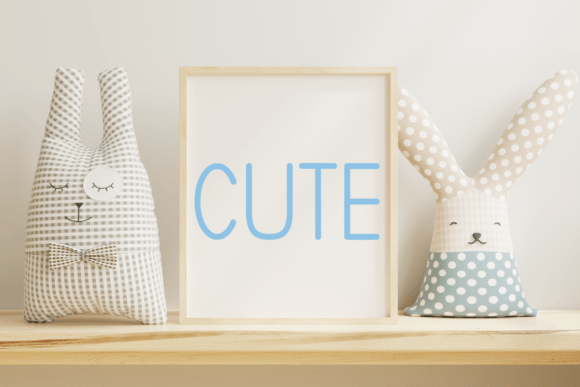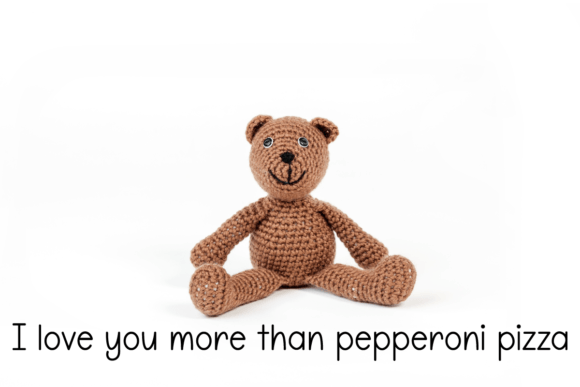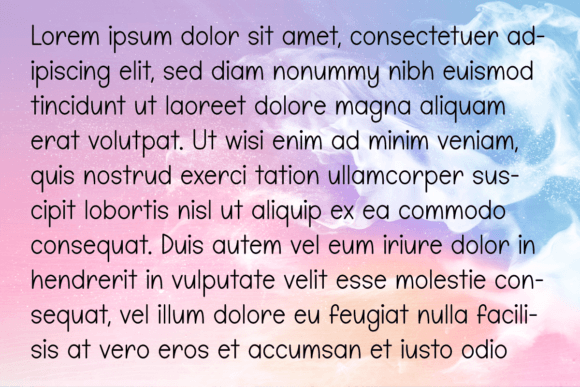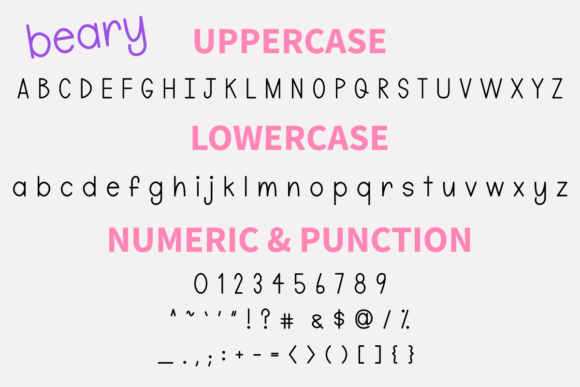
Introducing Beary Font: The Ultimate Choice for Whimsical Designs
Are you tired of using the same old fonts in your designs? Do you want to add a touch of personality and whimsy to your projects? Look no further than Beary Font, a fun and friendly handwritten font that’s sure to brighten up any design. In this article, we’ll take a closer look at Beary Font, its features, and how you can use it to take your designs to the next level.
What is Beary Font?
Beary Font is a handwritten font that’s designed to be both fun and friendly. Its whimsical and quirky style makes it perfect for designers who want to add a personal touch to their projects. Whether you’re working on a logo, wedding invitation, quote, advertisement, or print material, Beary Font is the perfect choice.
Key Features of Beary Font
• Handwritten style: Beary Font has a unique, handwritten style that’s both personal and approachable.
• Whimsical and quirky: This font is designed to be fun and playful, making it perfect for designers who want to add a touch of personality to their projects.
• Versatile: Beary Font can be used for a wide range of projects, including logos, wedding invitations, quotes, advertisements, print materials, magazines, and more.
• Easy to read: Despite its playful style, Beary Font is easy to read, making it perfect for body text and headlines.
How to Use Beary Font in Your Designs
Beary Font is a versatile font that can be used in a wide range of designs. Here are a few ideas to get you started:
• Logos: Use Beary Font to create a fun and memorable logo for your business or brand.
• Wedding invitations: Add a touch of whimsy to your wedding invitations with Beary Font.
• Quotes and posters: Use Beary Font to create eye-catching quotes and posters that will grab attention.
• Advertisements: Beary Font is perfect for advertisements that need to stand out from the crowd.
• Print materials: Use Beary Font in your print materials, such as brochures, flyers, and business cards.
• Magazines: Beary Font is a great choice for magazine headlines and body text.
Why Choose Beary Font?
So why choose Beary Font over other fonts? Here are a few reasons:
• Unique style: Beary Font has a unique style that’s both fun and friendly.
• High-quality design: Beary Font is designed to be high-quality and easy to read.
• Versatile: Beary Font can be used for a wide range of projects.
Tips for Using Beary Font Effectively
Here are a few tips for using Beary Font effectively in your designs:
• Use it sparingly: Beary Font is a bold font, so use it sparingly to avoid overwhelming your design.
• Pair it with other fonts: Beary Font pairs well with other fonts, so experiment with different combinations to find the perfect look.
• Experiment with colors: Beary Font looks great in a wide range of colors, so experiment to find the perfect color for your design.
Beary Font is a fun and friendly handwritten font that’s perfect for designers who want to add a touch of personality to their projects. With its whimsical and quirky style, Beary Font is sure to brighten up any design. Whether you’re working on a logo, wedding invitation, quote, advertisement, or print material, Beary Font is the perfect choice. So why wait? Download Beary Font today and start creating amazing designs!